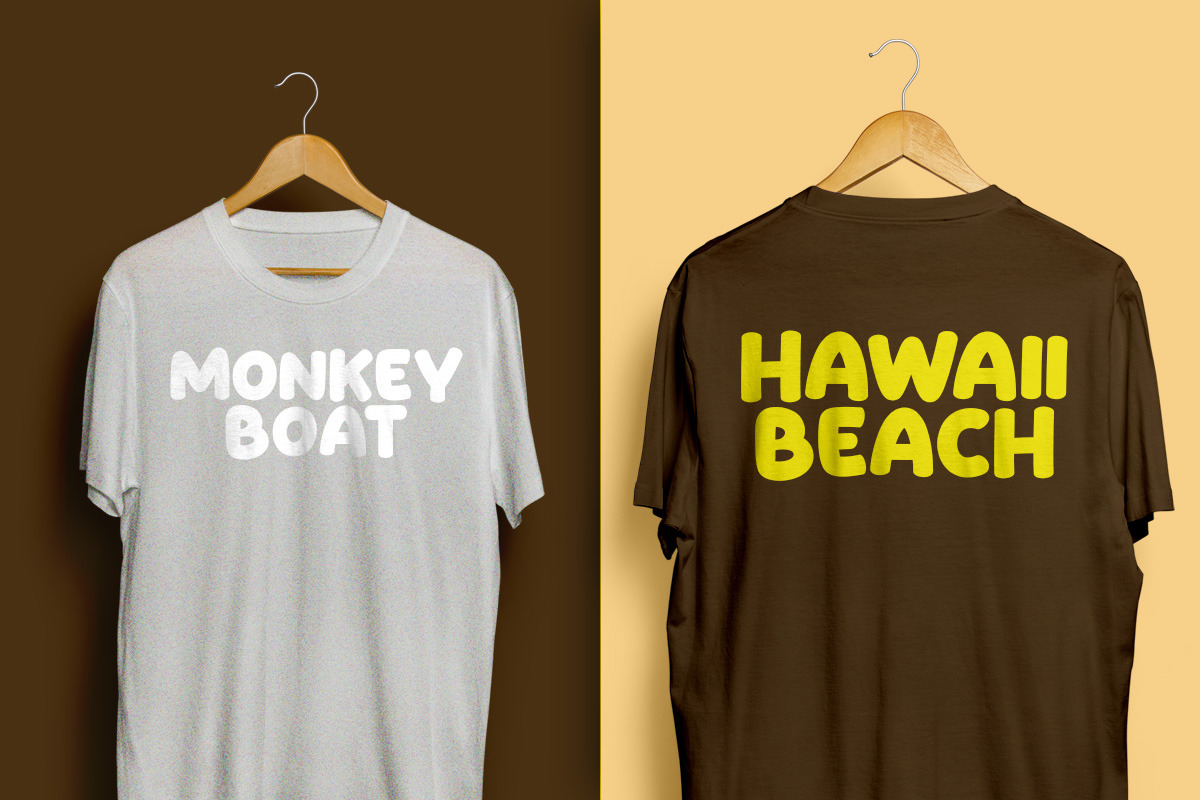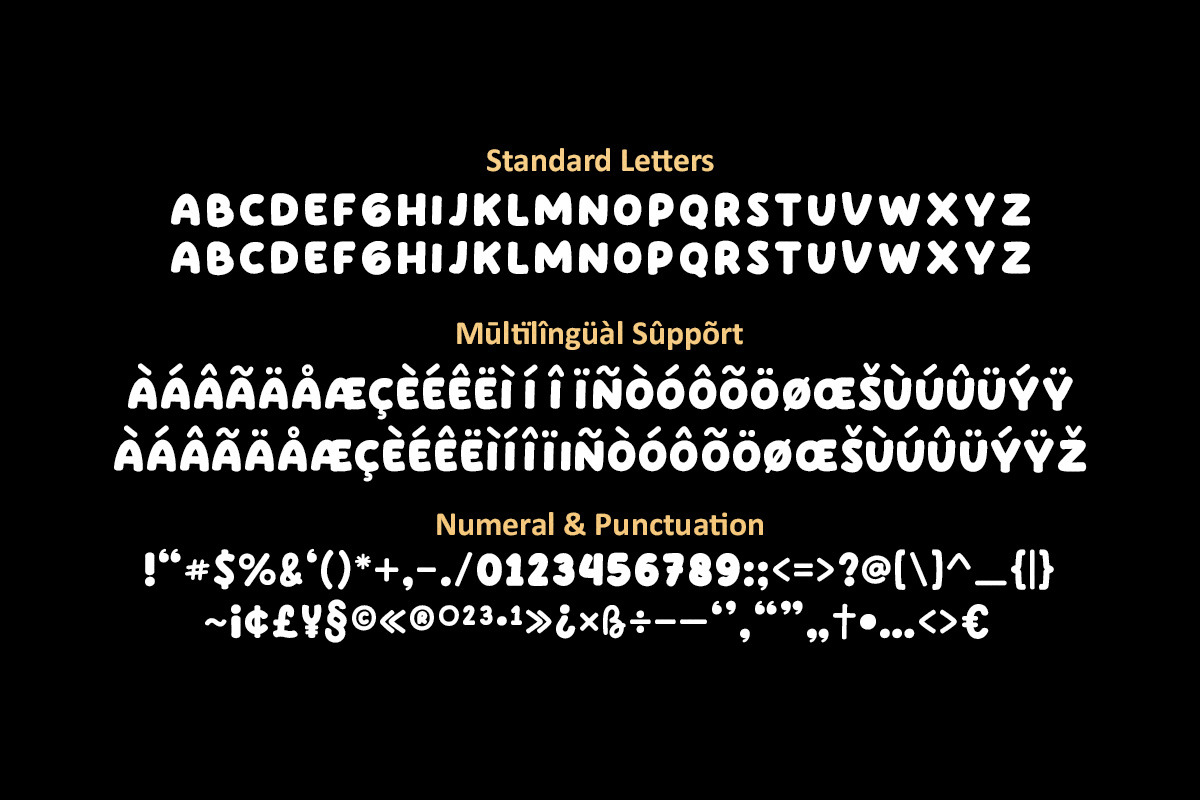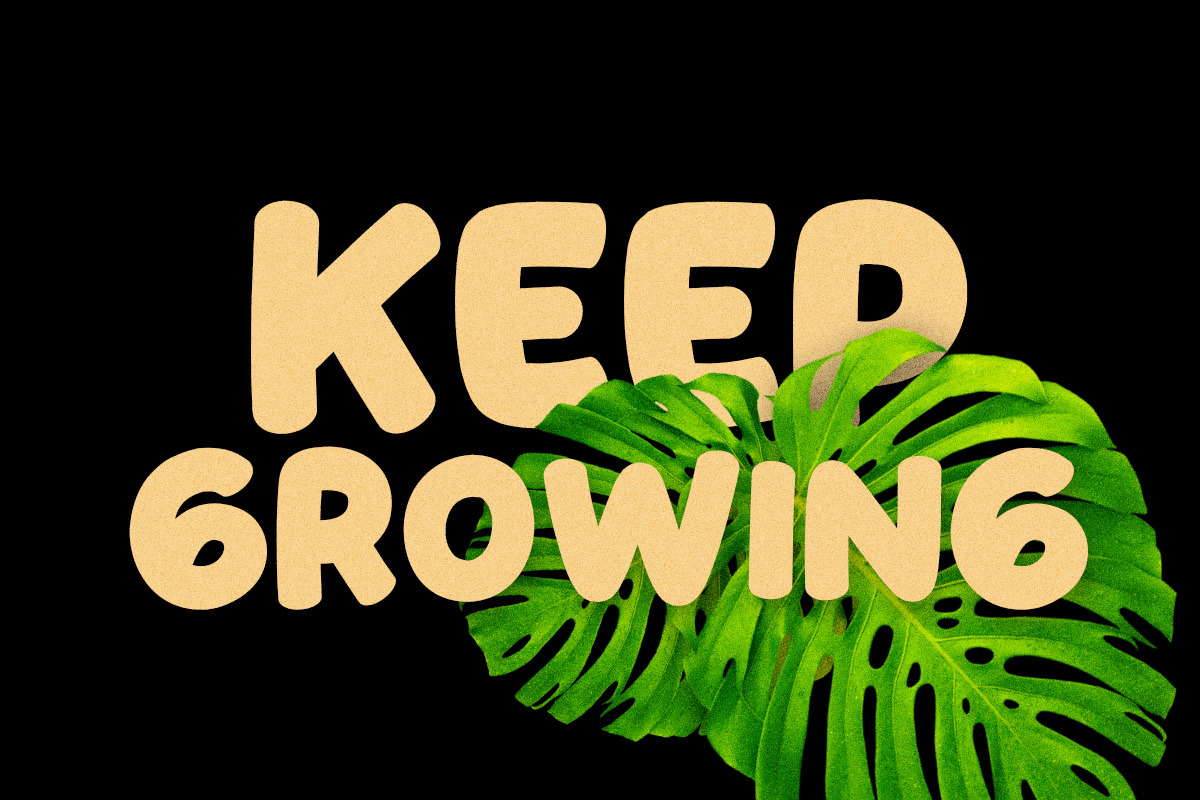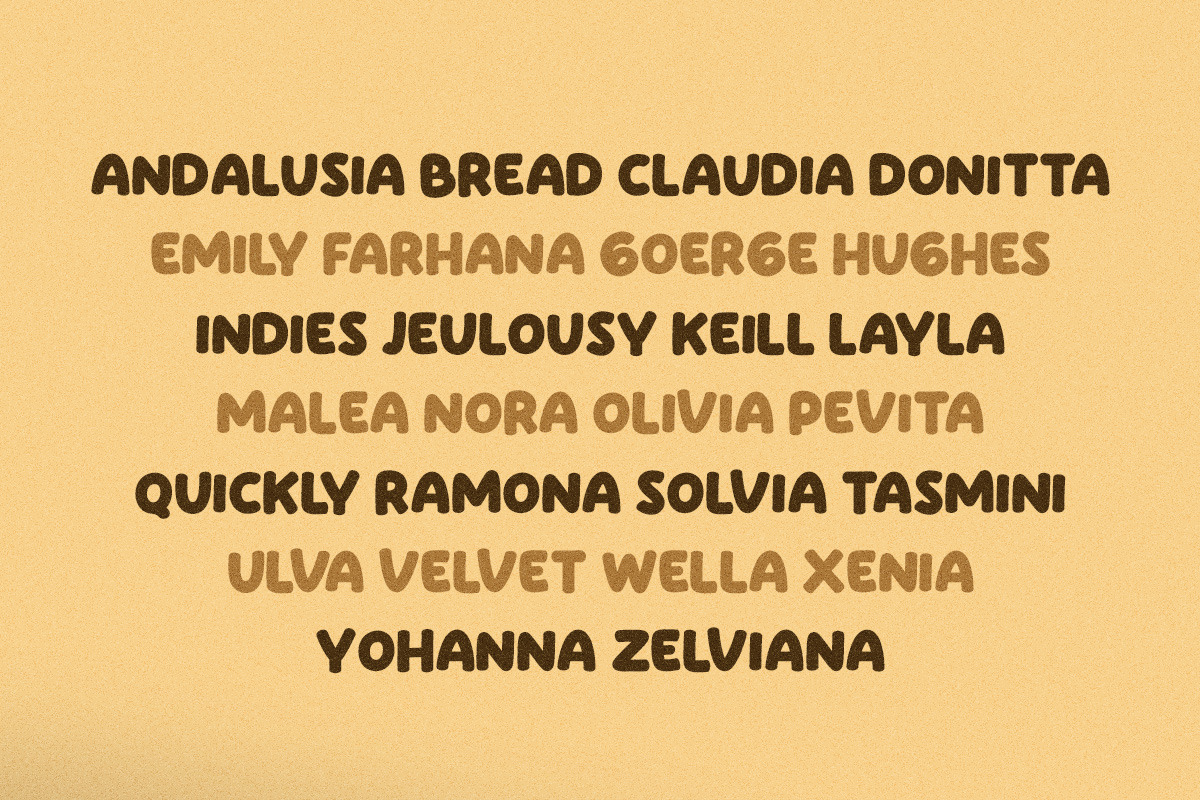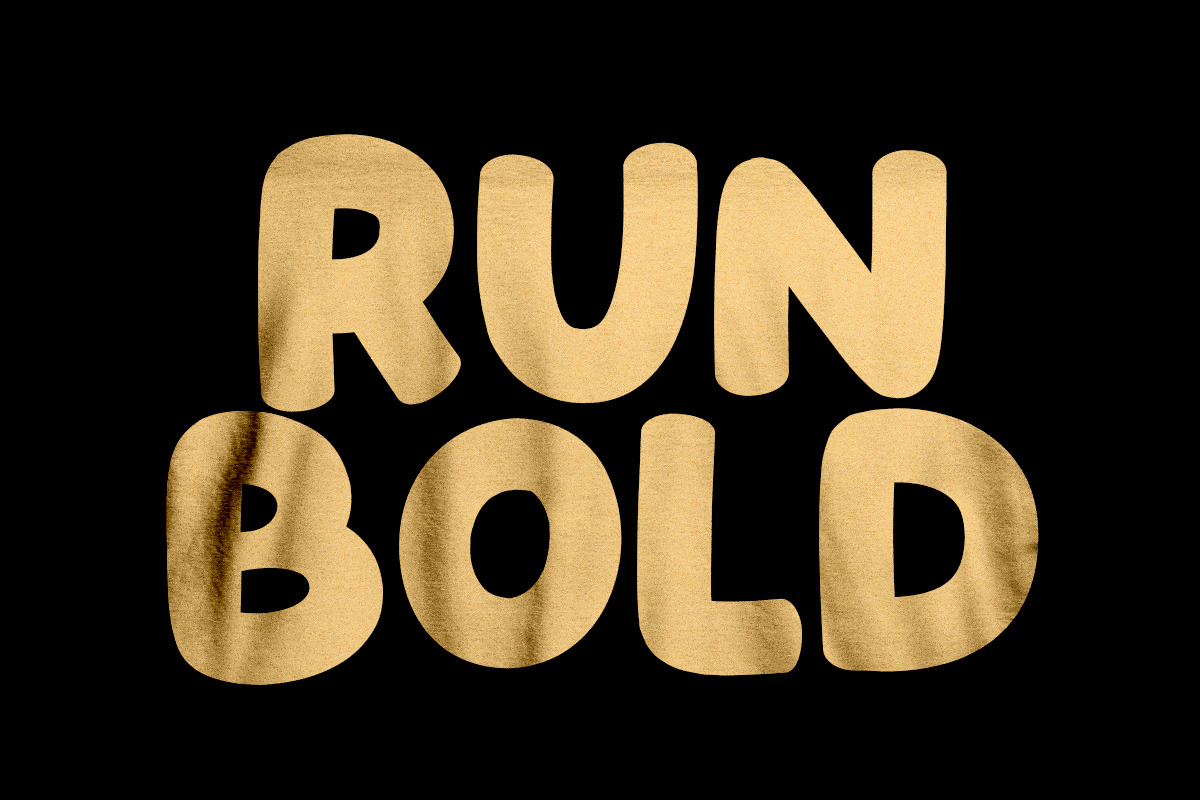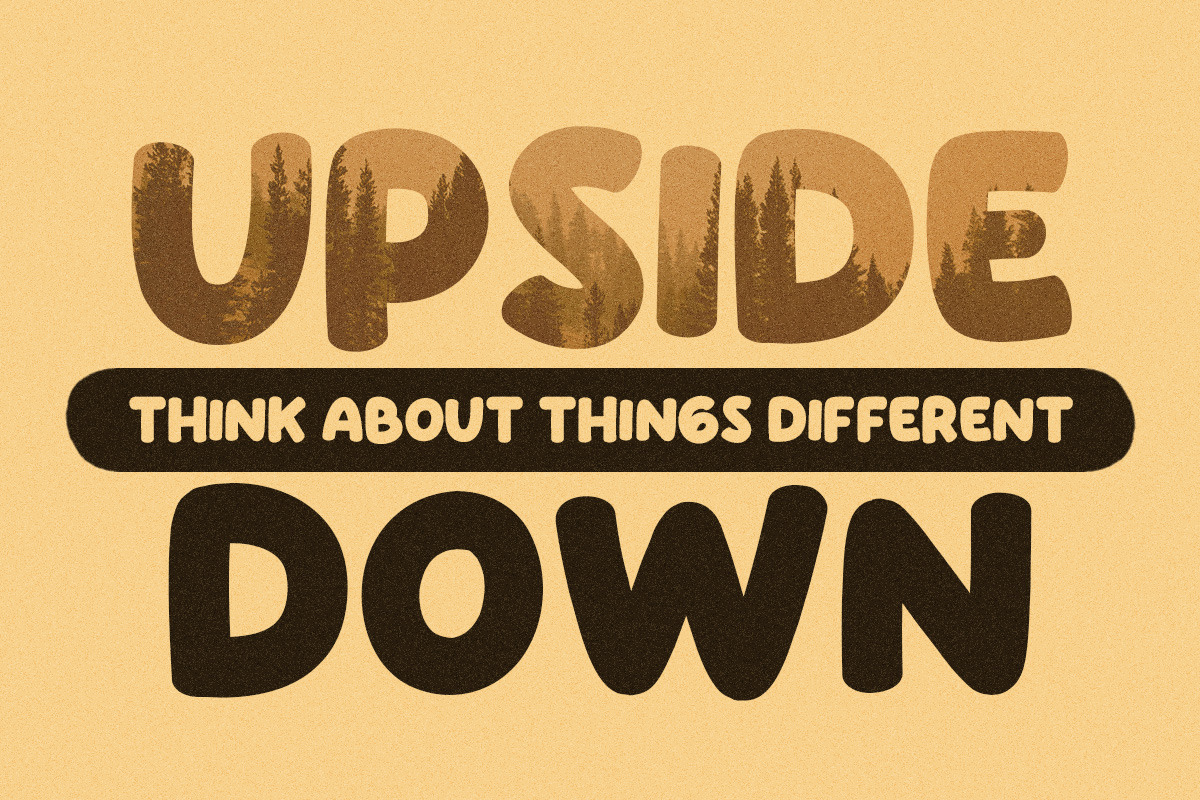
Quickly Brown - Bold Script
Quickly Brown Bold Script Font
This font describes about fun, bold, chubby, wide and easy to use. Quickly Brown inspired from Doodle and Junk Food.
- All Capital Bold
USE Quickly Brown works great in any craft, logotype, magazine, quotes, social media and any projects that need all about Bold taste.